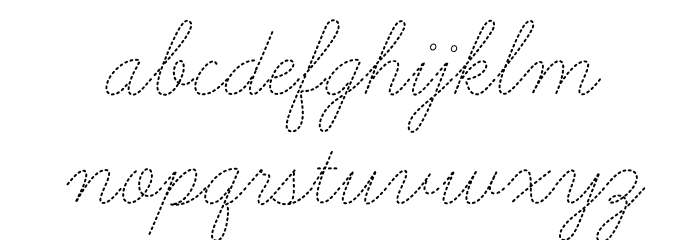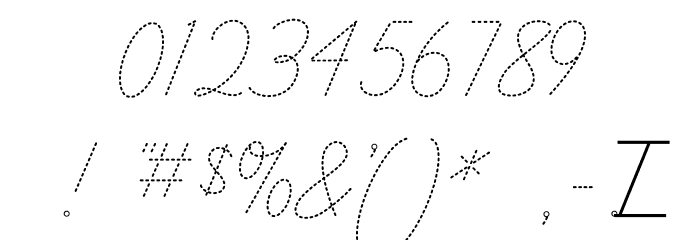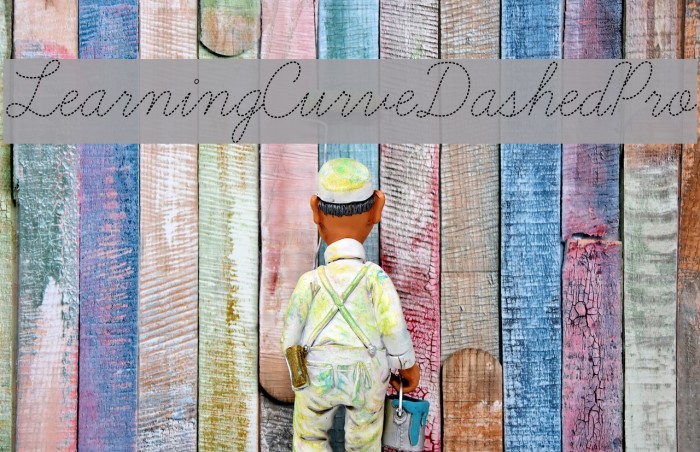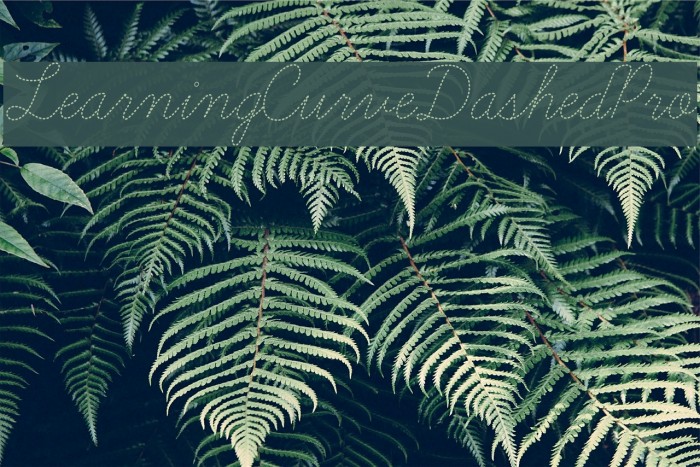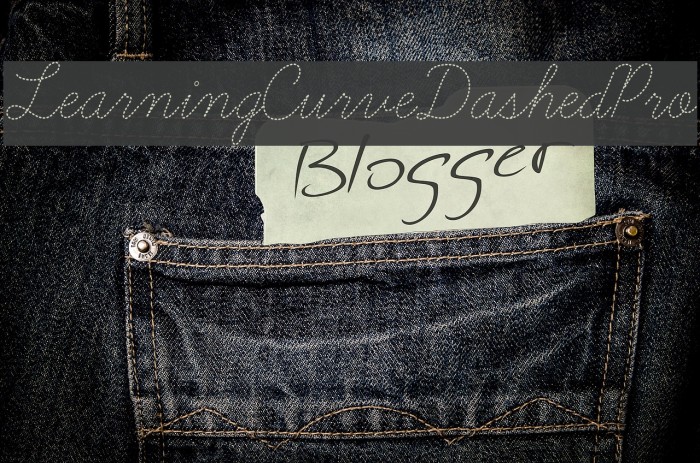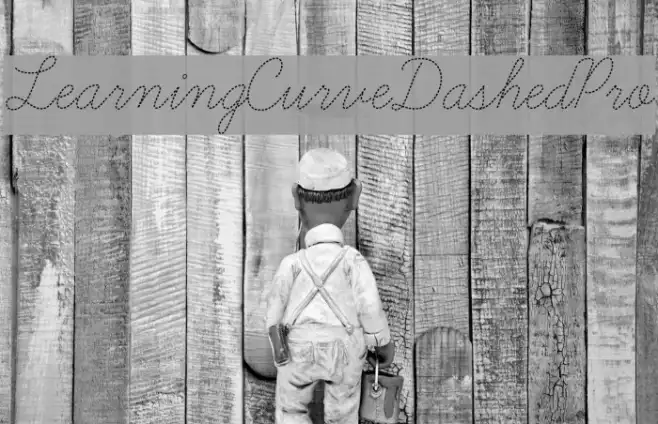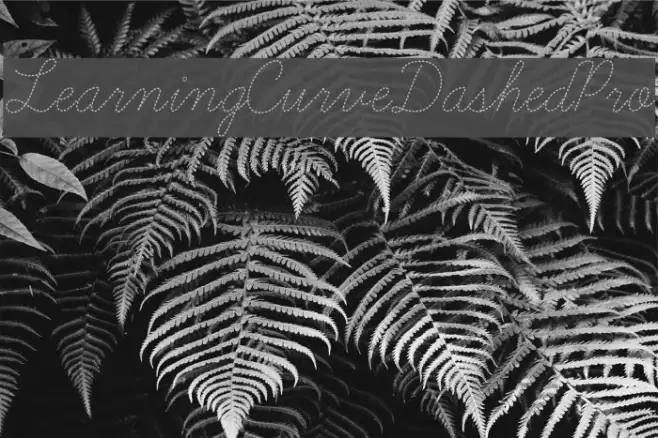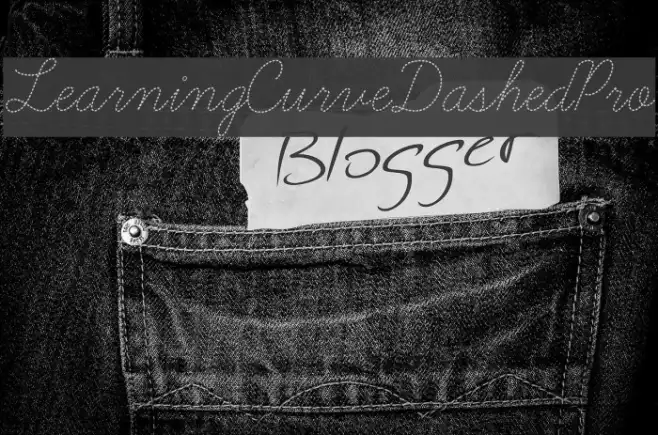
LearningCurveDashedPro Font
This font features a unique dashed line style, giving it a playful and educational appearance. The characters are designed in a cursive script, with each letter formed by a series of evenly spaced dots. This design is particularly useful for teaching handwriting, as it guides the writer in forming letters correctly. The uppercase and lowercase letters maintain a consistent flow, and the numbers and special characters follow the same dashed pattern. The overall look is light and airy, making it suitable for educational materials aimed at young learners.
A playful dashed cursive font ideal for handwriting education.
- Proposed Projects: Ideal for educational materials, handwriting practice sheets, children's books, and playful design projects.
- Category: Script
- Weight: Light
- Overall Style: Educational, Playful
- Use Case: Educational materials, Handwriting practice